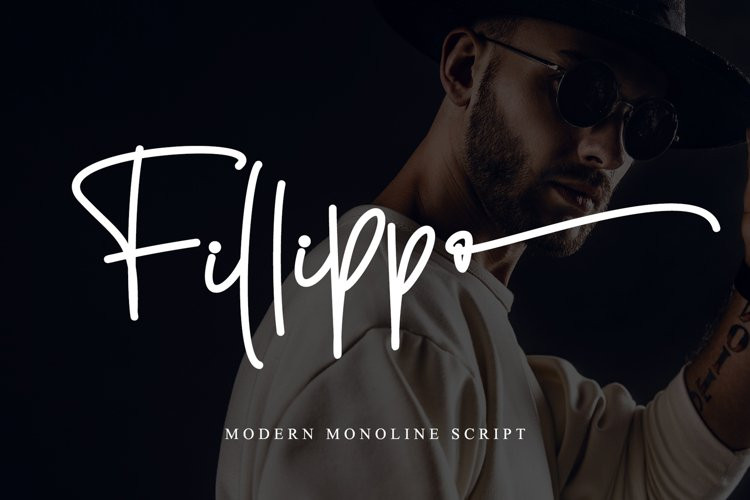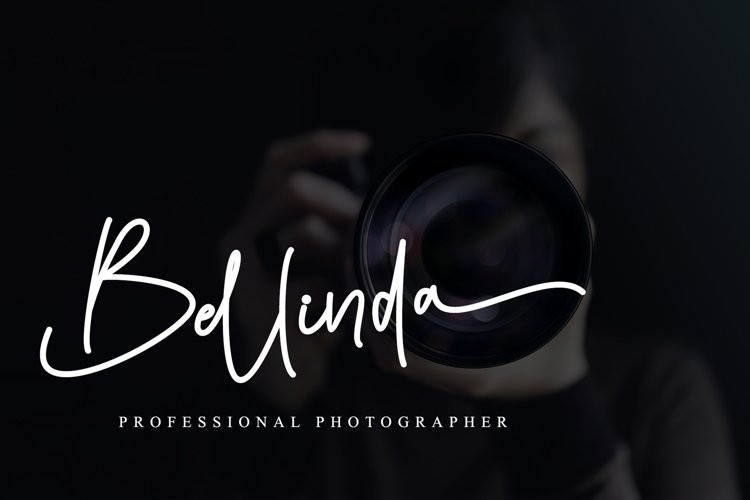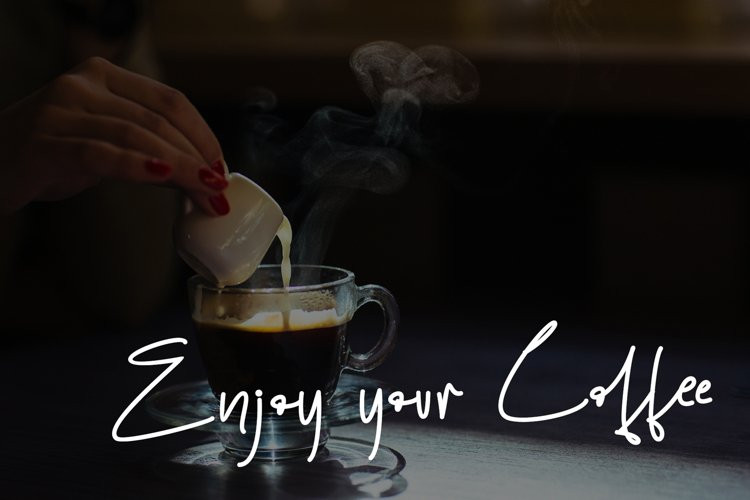
Fillippo Font
Fillippo is a stunning monoline style script font with authentic and casual vibes. It looks beautiful on a variety of designs requiring a personalized style, such as wedding invitations, thank you cards, advertising, poster, greeting cards, logos and so on. Fillippo is PUA encoded which means you can access all of the glyphs and swashes with ease!